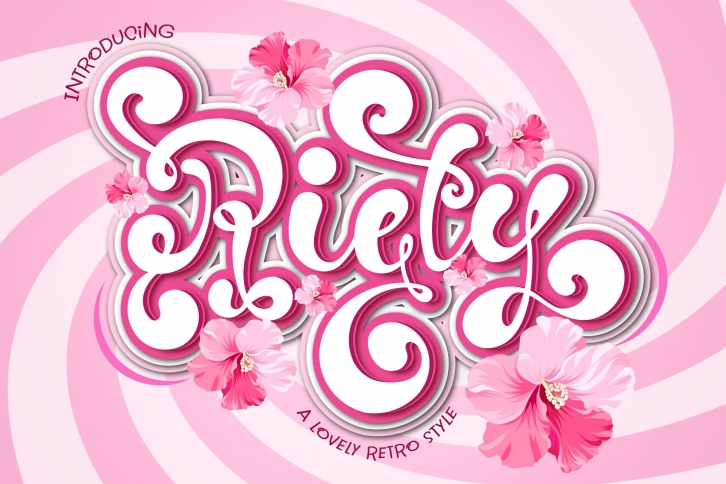
Riety is a lovely retro-style font that you can use for wedding-related projects, Christmas cards, branding, logos, mugs, posters, invitations, and more.